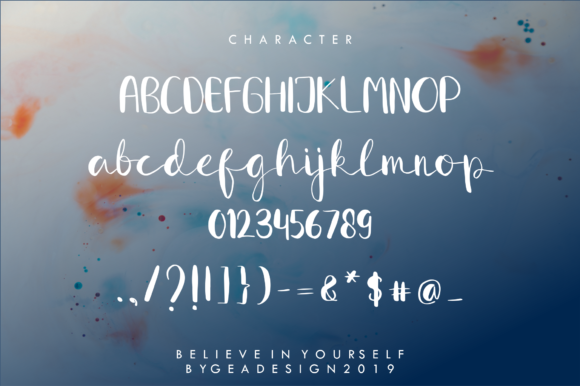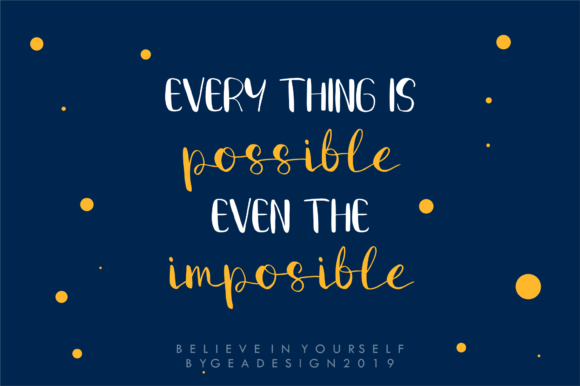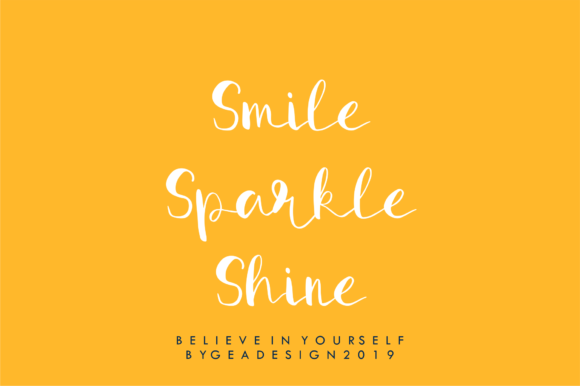
Believe in Yourself Font
About Believe in Yourself Font
Believe in Yourself is a stunning handwritten font that is full of life! Feel inspired by its dynamic charm, and turn any design project into a true stand out.